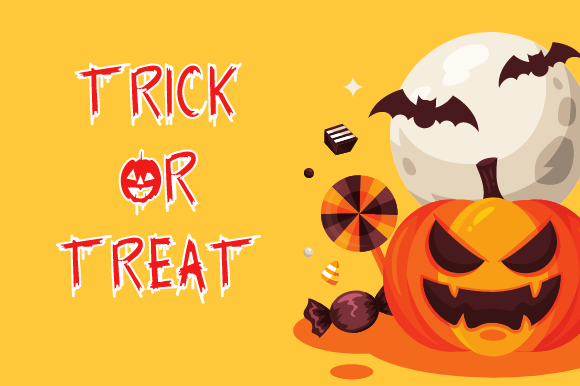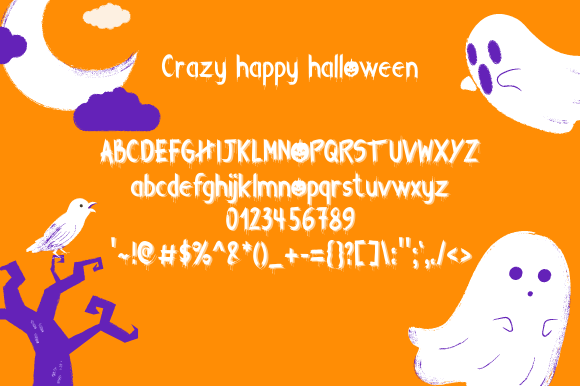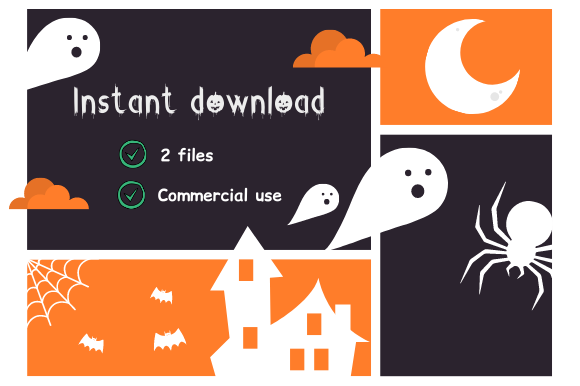
Crazy Happy Halloween Font: Add a Spooky Touch to Your Designs
Are you looking for a font that will make your Halloween designs stand out from the crowd? Look no further than the Crazy Happy Halloween Font! This cool, fun, and friendly decorative font is perfect for adding a spooky touch to your October design ideas. In this article, we’ll take a closer look at the Crazy Happy Halloween Font and explore how you can use it to make your creations look out of this world.
What is the Crazy Happy Halloween Font?
The Crazy Happy Halloween Font is a unique and playful font designed specifically for the Halloween season. Its fun and quirky style makes it perfect for a variety of design projects, from party invitations and decorations to social media graphics and more. The font features bold, playful letters with a mix of uppercase and lowercase letters, numbers, and punctuation marks, making it easy to use for a wide range of design projects.
Key Features of the Crazy Happy Halloween Font
- Unique and Playful Style: The Crazy Happy Halloween Font has a one-of-a-kind design that’s sure to grab attention.
- Versatile: The font can be used for a wide range of design projects, from digital graphics to print materials.
- Fun and Festive: The font is perfect for adding a spooky touch to your Halloween designs.
How to Use the Crazy Happy Halloween Font
The Crazy Happy Halloween Font is easy to use and can be incorporated into a variety of design projects. Here are a few ideas to get you started:
- Party Invitations: Use the font to create spooky and fun party invitations that will set the tone for your Halloween celebration.
- Social Media Graphics: Add the font to your social media graphics, such as Halloween-themed Facebook posts or Instagram stories.
- Decorations: Use the font to create festive decorations, such as banners, signs, or centerpieces.
- Digital Graphics: Incorporate the font into your digital graphics, such as Halloween-themed wallpapers or phone cases.
Tips for Using the Crazy Happy Halloween Font
Here are a few tips for using the Crazy Happy Halloween Font:
- Experiment with Colors: The font looks great in a variety of colors, so don’t be afraid to experiment and find the perfect color scheme for your design.
- Mix and Match Fonts: The Crazy Happy Halloween Font pairs well with other fonts, so try mixing and matching it with other fonts to create a unique look.
- Use it Sparingly: While the font is fun and playful, it can be overwhelming if used too much. Use it sparingly to create a balanced design.
The Crazy Happy Halloween Font is a fun and playful font that’s perfect for adding a spooky touch to your Halloween designs. With its unique and playful style, ease of use, and versatility, it’s a great addition to any design project. Whether you’re a designer or crafter, this font is sure to inspire your creativity and help you create designs that are out of this world. So why wait? Download the Crazy Happy Halloween Font today and start creating your own spooky and fun designs!